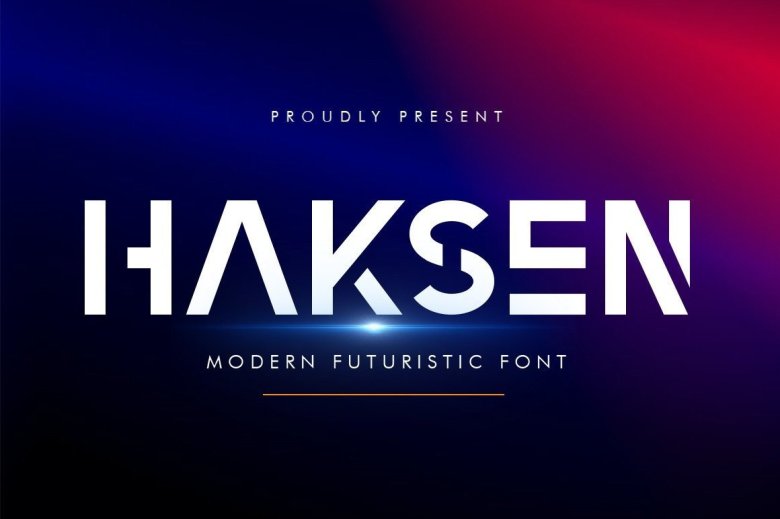
Haksen Font
The Haksen Font is a modern bold and noble Sans style You feel that has been around for some years. Its wide range of uppercases with alternates as well as ligature dings affords ample room to design in various ways with perfectly functional details and it works just as well for headlines logos posters packaging T-shirts too.
Haksen Sans Serif Font